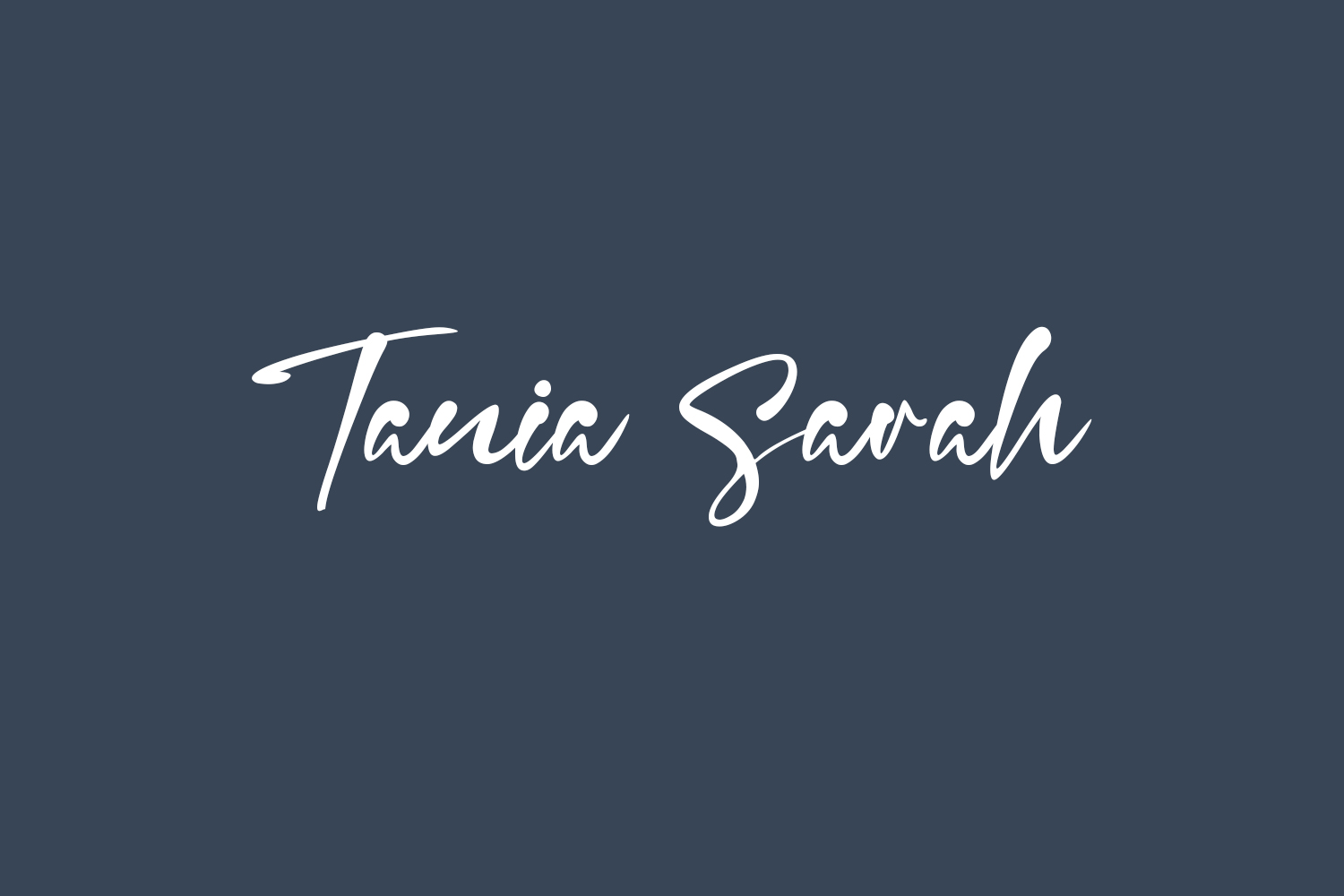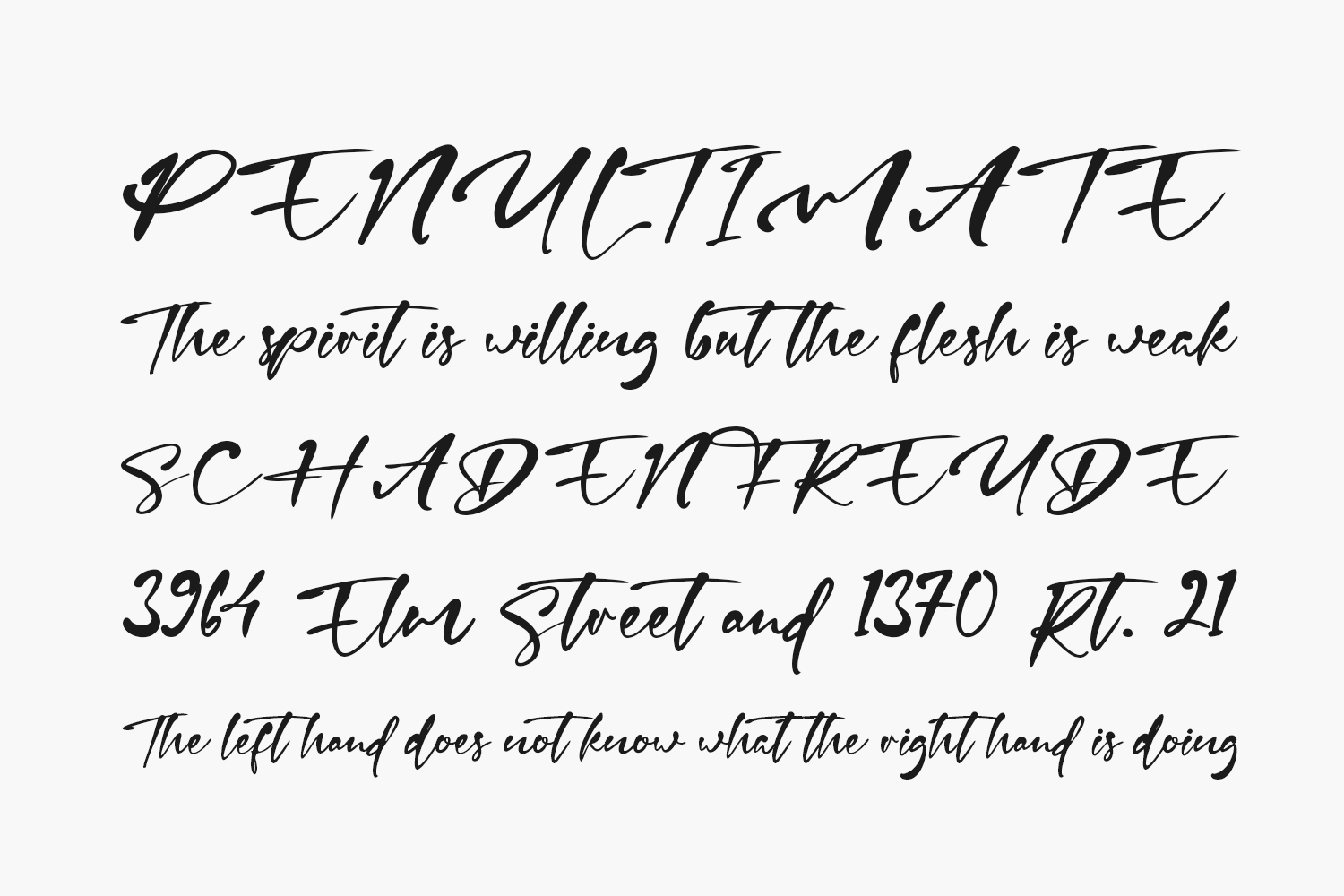
Introducing Tania Sarah Free Font, a breathtakingly beautiful free font that captures the essence of sophistication and elegance. Its display script style is a perfect blend of classic calligraphy and modern design, making it ideal for adding a touch of glamour to any project. Tania Sarah’s flowing lines and gentle curves evoke a sense of grace and fluidity, while its carefully crafted letterforms ensure clarity and legibility at any size. Whether you’re designing invitations, branding, or editorial layouts, Tania Sarah is sure to elevate your work to new heights of sophistication and style. Best of all, this stunning font is available for free, making it accessible to designers and creatives everywhere.